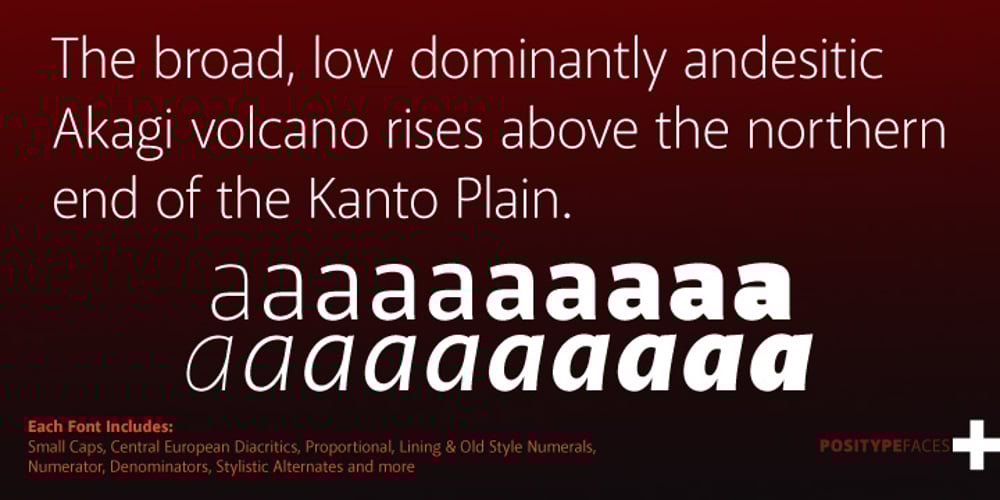
Akagi
Akagi font
Akagi Font Family was designed by Neil Summerour and published by Positype. Akagi contains 20 styles and family package options. Akagi started as a rough sketch while on a really long plane ride to Tokyo in 2007. I wanted to develop a sans that was a complete departure from my successful Aaux Pro (now Aaux Next) sans serif family. Whereas Aaux and its siblings are rather unforgiving and stark in their presentation, I wanted this new sans serif to “smile” at you when it’s on the page. When the plane landed and I realized I did not sleep through the 15 hour trip, my brain shut off, the laptop closed and I hopped in the car to the hotel—forgetting the “new sans” folder on my desktop. Fast forward a few months and I found myself seeing a lot of crisp, rigid, robot-like sans serif typefaces everywhere… I enjoy these new crop of faces but wanted to see something “friendlier” and remembered my earlier sketch work. The groundwork was there screaming at me to complete and Akagi arose from the ashes. To be truly satisfied with it personally, a great deal of time was spent trying to create a harmony between line and curve in an attempt to show that you can be crisp, clean and legible and still keep some personality. The Light and Fat weights (regular and italic) are my favorites and I hope to see them as the workhorses of the typeface.